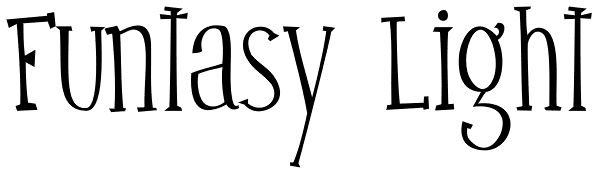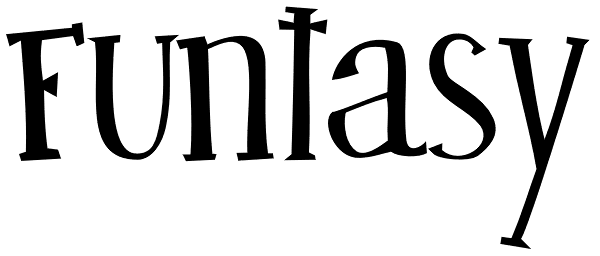
Funtasy
Funtasy is a fun font. It mixes the formal rules of traditional types, and also has the beauty of informal fantasy types. It could be useful with kids clothes, children books, birthday invitations, and with more kid related items.
Funtasy Light
Funtasy